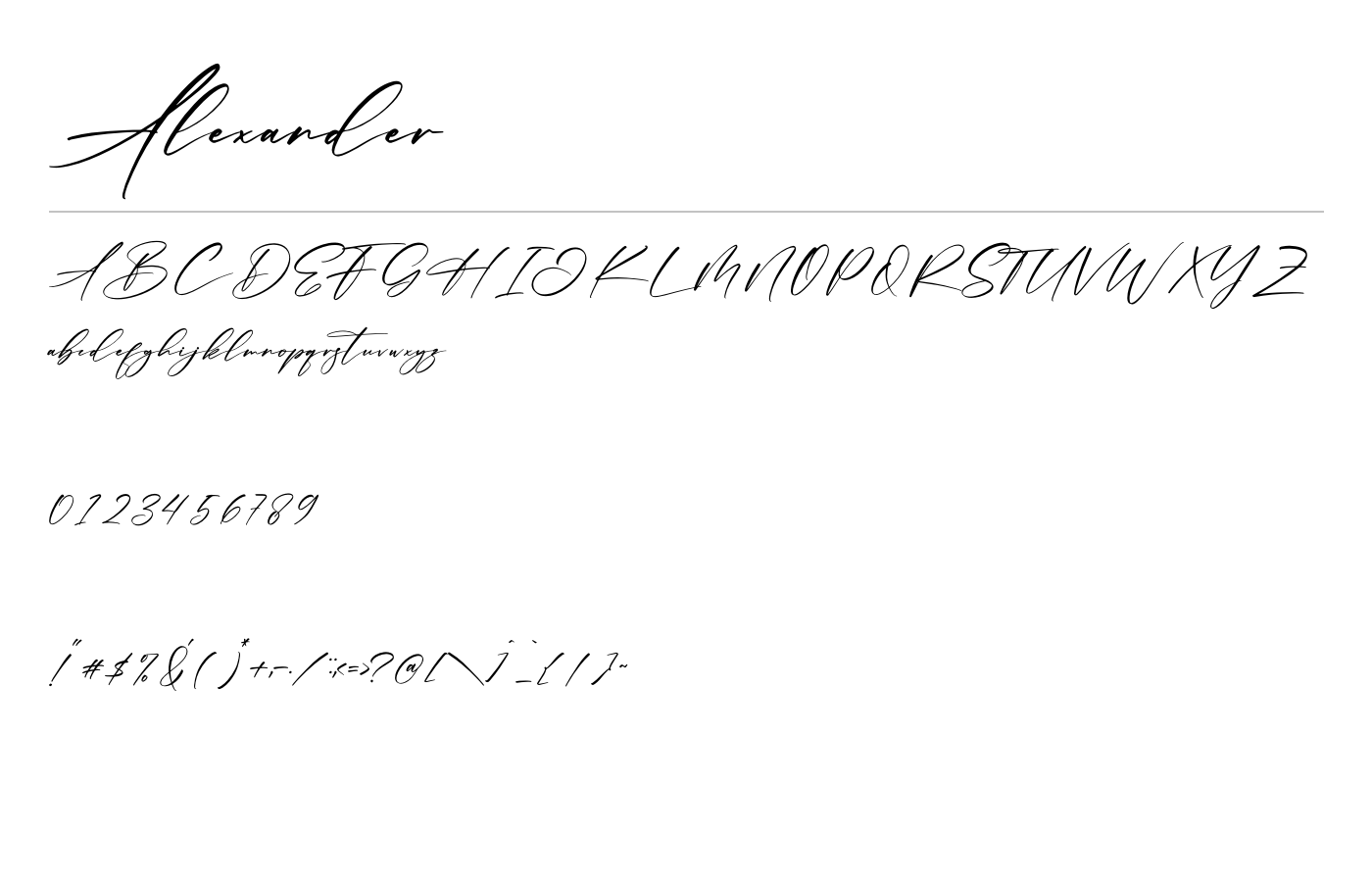
Alexander is an elegant, light-script font with a flowing, handwritten style that evokes a sense of sophistication and personal touch. Its fine lines and graceful letterforms make it perfect for luxury branding, wedding invitations, and stylish logos where a delicate, refined look is desired. This font works best in display contexts, adding a warm and artistic flair to designs that seek an intimate yet polished feel.
Alexander Font
About Alexander Font